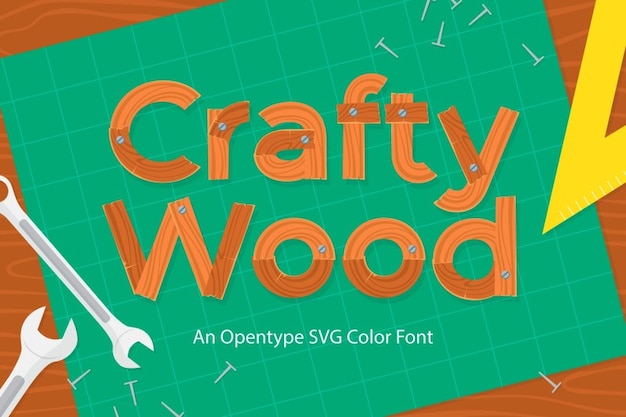
"Craft Wood" is the font embodiment of rustic charm. With its geometrical precision, it carves letters into the text like artisanal woodwork. Each character resonates with a touch of the great outdoors, a warm log cabin, or the scent of freshly cut lumber. It's a font that brings the beauty of the natural world right to your design, crafting a warm, inviting atmosphere. Perfect for a rustic wedding invitation or any project where you want to infuse a touch of nature into your words.